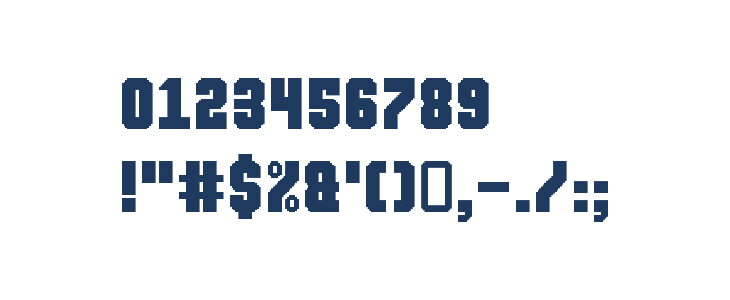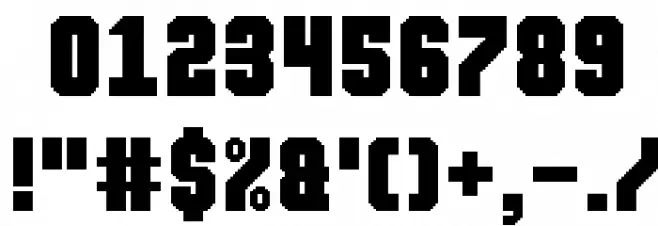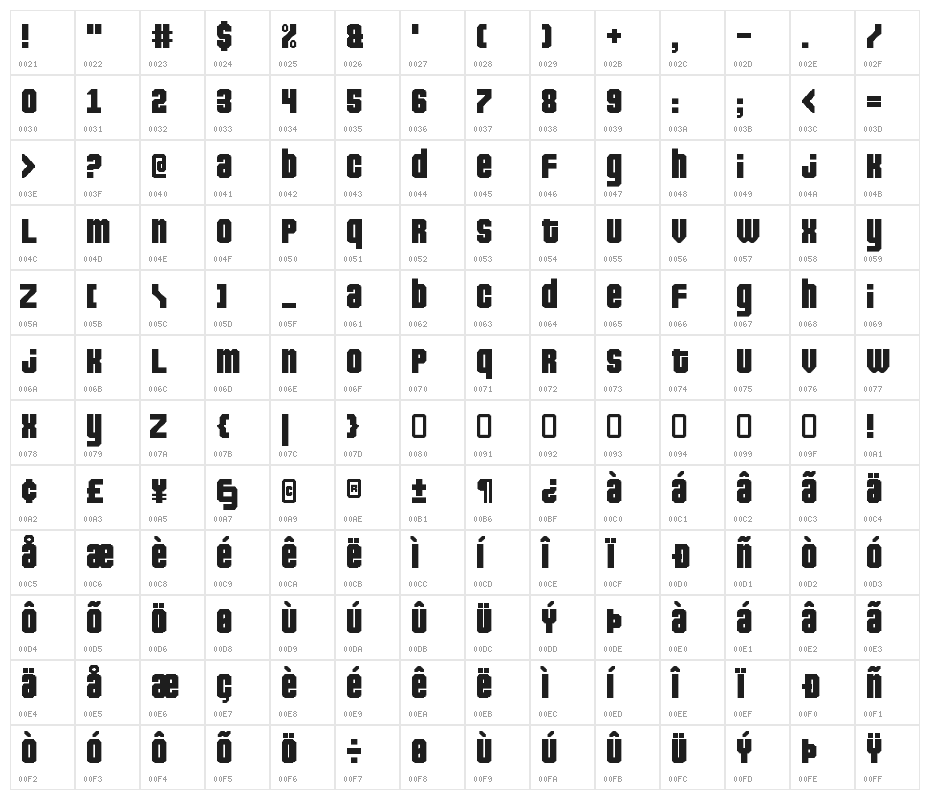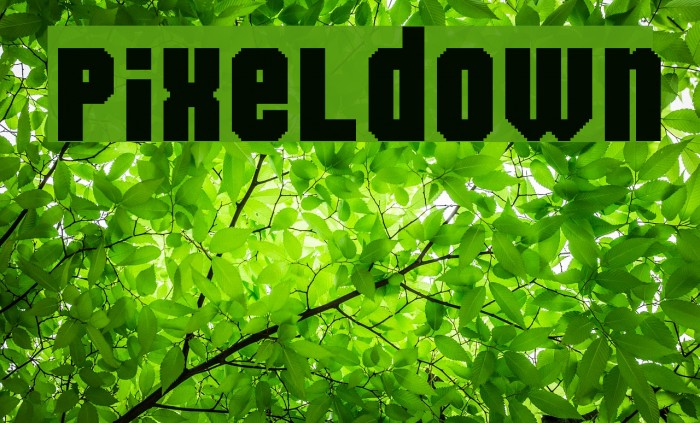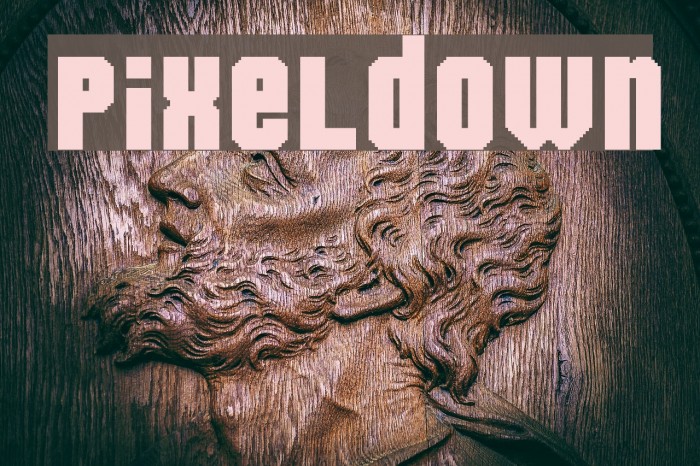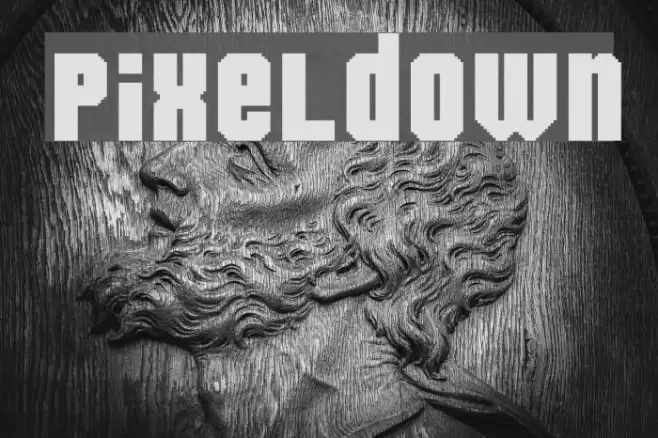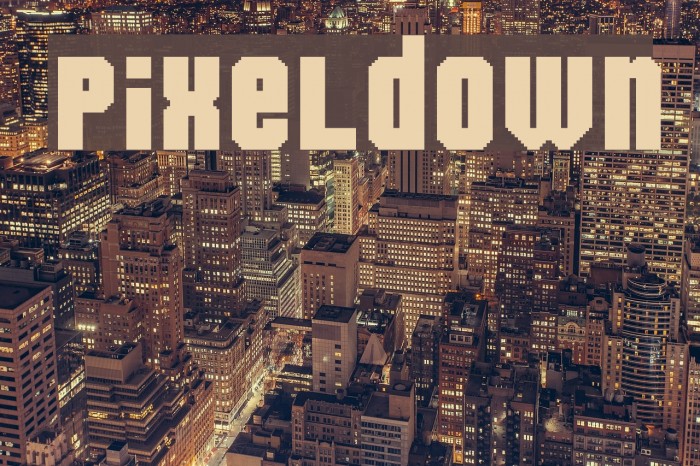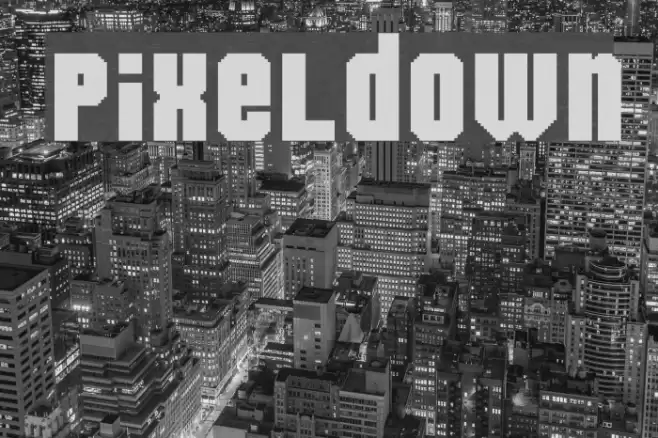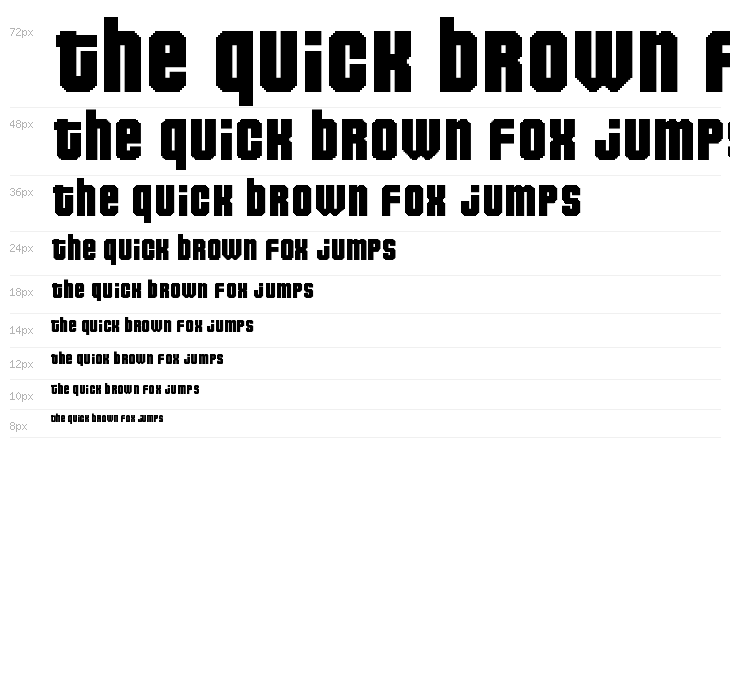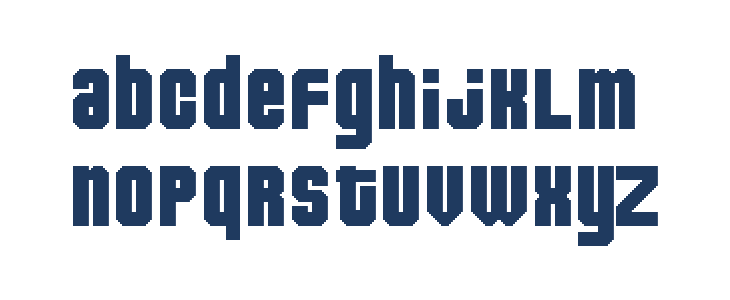
Pixeldown Font
Pixeldown Description
This font features a bold, geometric design with a pixelated aesthetic, reminiscent of early digital displays and retro video games. The characters are blocky and uniform, with sharp angles and a consistent stroke width that gives it a strong, impactful presence. The uppercase and lowercase letters maintain a similar height, enhancing the font's cohesive look. Numbers and special characters are crafted with the same pixelated style, ensuring visual harmony across all elements. This font's distinct style makes it ideal for projects that aim to evoke nostalgia or a tech-inspired theme.
| Proposed Projects | Ideal for video game graphics, retro-themed posters, digital art, and tech-related branding. |